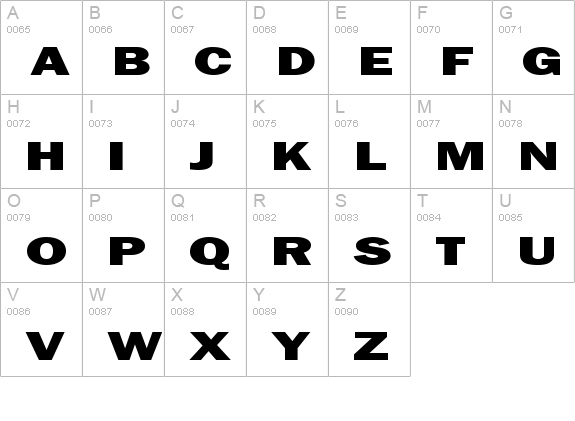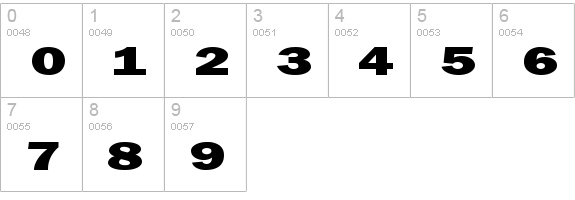
Francis Gothic Extended Normal is the standard, neutral, extended-width variant in the Francis typeface family \xE2\x80\x94 well suited to general body text, paragraphs, and standard typographic work.
Francis Gothic Extended Normal is a classic and elegant font that exudes sophistication and modernity. With its sleek lines and sharp edges, this font is perfect for creating impactful headlines and sleek designs. The extended version offers added versatility and allows for creative typography layouts. Best of all, Francis Gothic Extended Normal is available for free download at FontsMarket.com. This means you can easily access this stylish font and use it for all your design projects without any cost. Don't miss out on the opportunity to elevate your designs with the timeless appeal of Francis Gothic Extended Normal. Download it today and let your creativity shine!